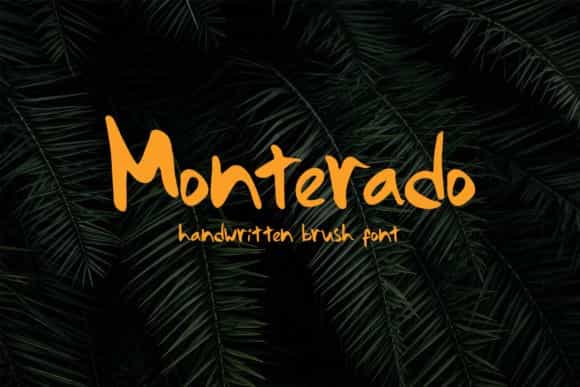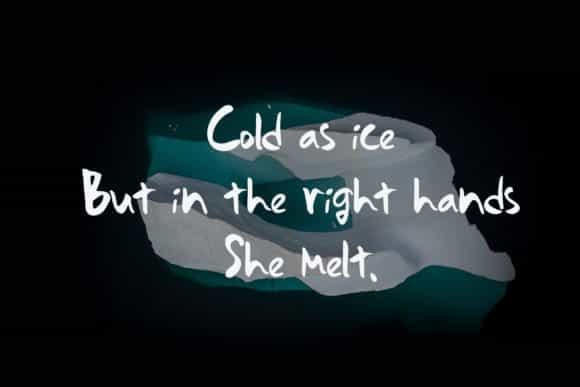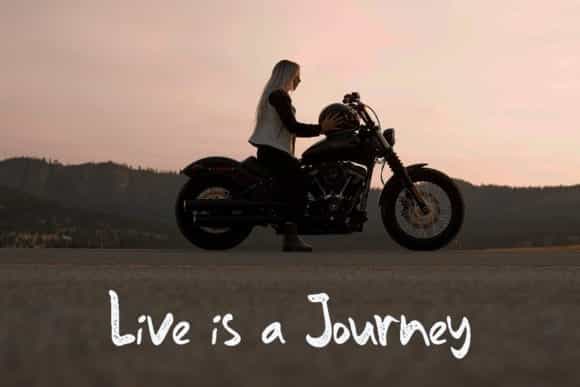
Discover Monterado Handwritten Brush Font, part of the Brush Handwritten collection—a versatile and unique font perfect for adding a personal touch to your projects. Download it for free and enjoy crafting designs with style, from invitations to social media posts. This font is available exclusively for personal use, giving you the freedom to create without limits. Unlock your creativity with Monterado Handwritten Brush Font today!
Introducing the newest style Monterado Font with the modern hand scratches, I hope you are interested in this font, if you want to use for your work this font can be used easily and simply because it contains a lot of features like complete set of letters lower and uppercase letters, assorted punctuation, numbers and multilingual support.